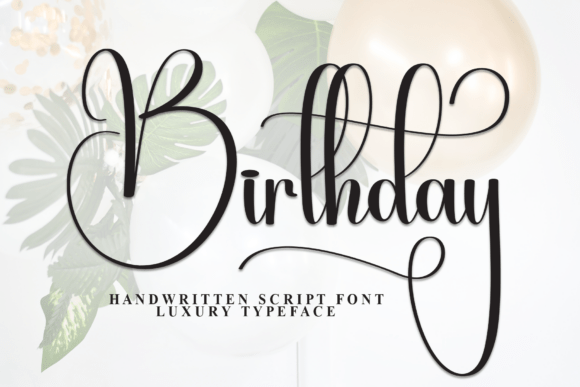
Birthday Font: Elevate Your Designs with a Stylish Handwritten Script
When it comes to creating visually stunning designs, the right typography can make all the difference. A well-crafted font can elevate your project from ordinary to extraordinary, conveying the perfect tone and personality. Introducing Birthday Font, a stylish handwritten script font that blends modern elegance with a playful touch. In this article, we’ll dive into the world of Birthday Font, exploring its unique features, uses, and benefits.
What is Birthday Font?
Birthday Font is a beautiful, handwritten script font designed to bring a personal feel to any design. Its fluid strokes and charming curves create a sense of warmth and sophistication, making it perfect for a wide range of applications. Whether you’re creating logos, packaging, invitations, or digital content, Birthday Font is the ideal choice for designers looking to add a touch of elegance and playfulness to their work.
Key Features of Birthday Font
- Fluid Strokes: Birthday Font features fluid strokes that give it a natural, handwritten feel. The smooth connections between letters create a sense of movement and fluidity, making it perfect for designs that require a personal touch.
- Charming Curves: The font’s charming curves add a touch of playfulness and whimsy to any design. The curves also help to create a sense of warmth and approachability, making Birthday Font ideal for designs that require a friendly tone.
- Modern Elegance: Despite its playful nature, Birthday Font exudes modern elegance. Its clean lines and balanced letterforms make it perfect for designs that require sophistication and refinement.
- Versatility: Birthday Font is incredibly versatile, making it suitable for a wide range of applications. From logos and packaging to invitations and digital content, this font can be used in various design projects.
Uses and Applications of Birthday Font
Birthday Font is an incredibly versatile font that can be used in various design projects. Here are some of the most popular uses and applications:
- Logos: Birthday Font is perfect for creating unique and memorable logos. Its modern elegance and playful touch make it ideal for brands that want to stand out from the competition.
- Packaging: The font’s charming curves and fluid strokes make it perfect for packaging designs. Whether you’re creating labels, tags, or product packaging, Birthday Font adds a touch of warmth and sophistication.
- Invitations: Birthday Font is ideal for creating beautiful and elegant invitations. Whether it’s a birthday party, wedding, or baby shower, this font adds a personal touch to any invitation.
- Digital Content: Birthday Font can also be used in digital content, such as social media graphics, blog posts, and website headers. Its modern elegance and playful touch make it perfect for creating engaging and visually stunning digital content.
Benefits of Using Birthday Font
Using Birthday Font in your designs offers numerous benefits. Here are some of the most significant advantages:
- Unique and Memorable: Birthday Font helps create unique and memorable designs that stand out from the competition.
- Personal Touch: The font’s handwritten nature adds a personal touch to any design, making it perfect for brands that want to connect with their audience.
- Versatility: Birthday Font is incredibly versatile, making it suitable for various design projects and applications.
- Easy to Read: Despite its playful nature, Birthday Font is easy to read, making it perfect for designs that require a clear and concise message.
Tips and Tricks for Using Birthday Font
Here are some tips and tricks for using Birthday Font in your designs:
- Pair with Other Fonts: Birthday Font pairs well with other fonts, especially sans-serif fonts. Experiment with different font combinations to create visually stunning designs.
- Use in Headlines: Birthday Font is perfect for headlines and titles. Use it to create attention-grabbing headlines that draw the reader’s attention.
- Experiment with Colors: Birthday Font looks great in various colors. Experiment with different colors to find the perfect match for your design.
- Pay Attention to Spacing: Pay attention to the spacing between letters and words. Adjusting the spacing can help create a more balanced and harmonious design.
In conclusion, Birthday Font is a stylish handwritten script font that blends modern elegance with a playful touch. Its fluid strokes and charming curves bring a personal feel to any design, making it perfect for logos, packaging, invitations, and digital content. With its versatility, ease of use, and unique features, Birthday Font is an excellent choice for designers looking to elevate their designs and create visually stunning projects.